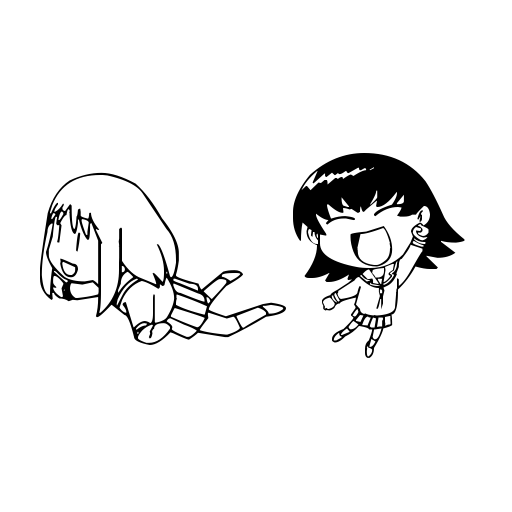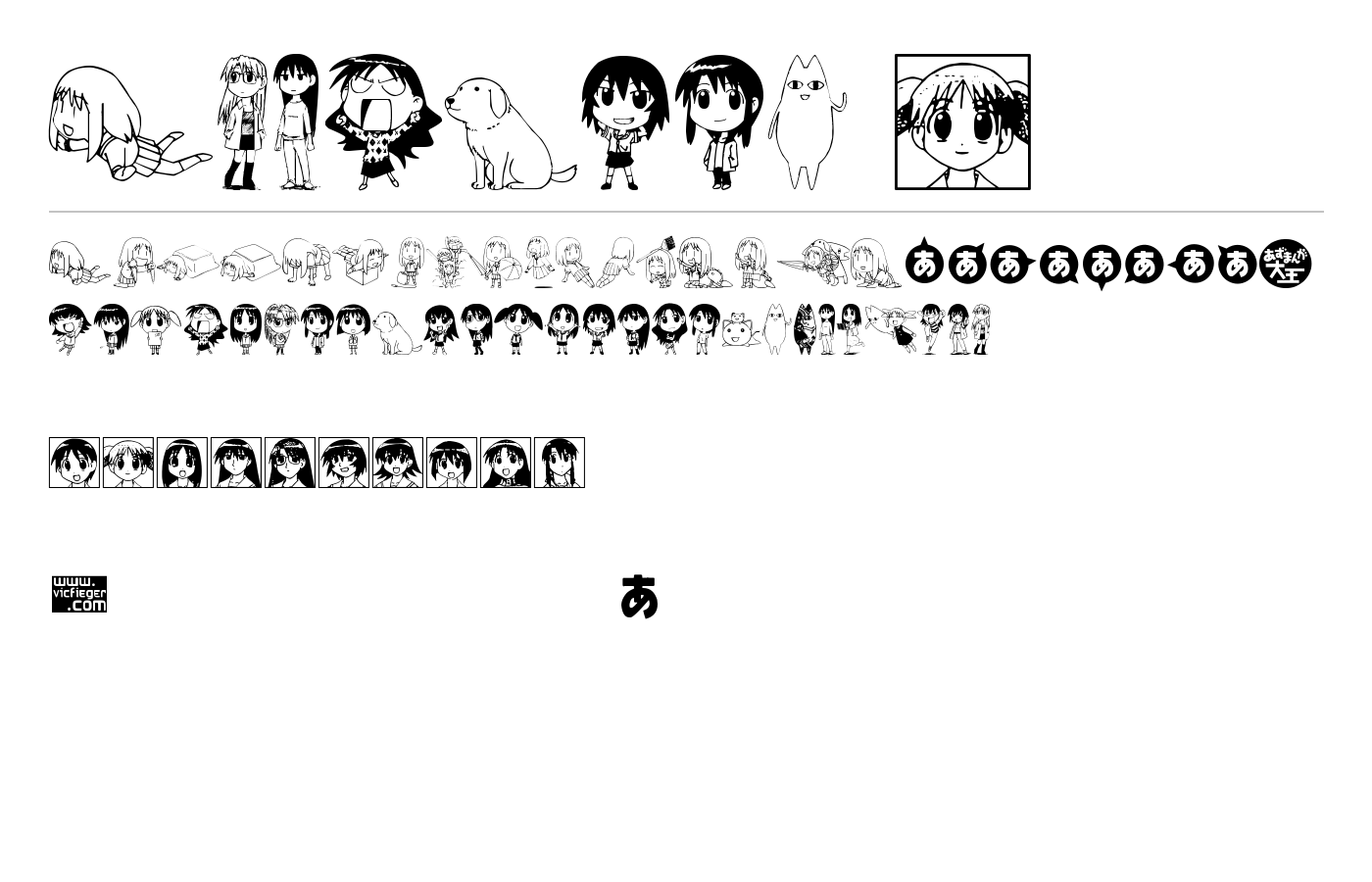
Azudings 1 is a playful dingbat-style font featuring charming, black-and-white cartoon characters and icons drawn with simple, bold lines and minimal shading. Perfect for adding a fun and whimsical touch, it works well in casual, creative projects like comics, invitations, or youth-oriented graphics where a lighthearted, animated feel is desired. This font is ideal for designers looking to inject personality and cheerfulness without using traditional letterforms.
Azudings 1 Font
About Azudings 1 Font